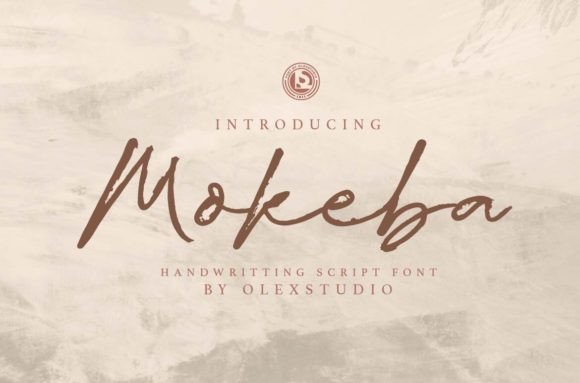
Unleash your creativity with Mokeba Font, the captivating script that dances off the page, adding a touch of magic to your designs. Its artful strokes weave a tale of individuality and inspiration, transforming your words into a visual masterpiece.
With Mokeba, your designs will exude charm and personality. Its friendly, approachable style brings a sense of warmth and connection to your audience, inviting them to engage with your message. Whether crafting heartfelt greeting cards, exploring your thoughts in a journal, or creating a welcoming brand identity, Mokeba's versatile essence shines through.
Dive into the world of Mokeba and embark on a creative journey. Its handwritten nature captivates the essence of spontaneity, adding an artistic flair to your creations. Each stroke dances across the page, inviting your audience to immerse themselves in your designs and connect with the passion behind your words.
Embrace the beauty of imperfection with Mokeba's playful vibe. Its charmingly messy strokes create a sense of authenticity and relatability, making your designs more approachable and inviting. Let your creativity flow as you discover new ways to express yourself through Mokeba's unique and endearing style.
Stand out from the crowd with Mokeba's bold and confident strokes. They command attention, ensuring your designs make a lasting impression. Whether crafting social media posts that demand attention or creating marketing materials that leave an impact, Mokeba amplifies your message and propels it to new heights.